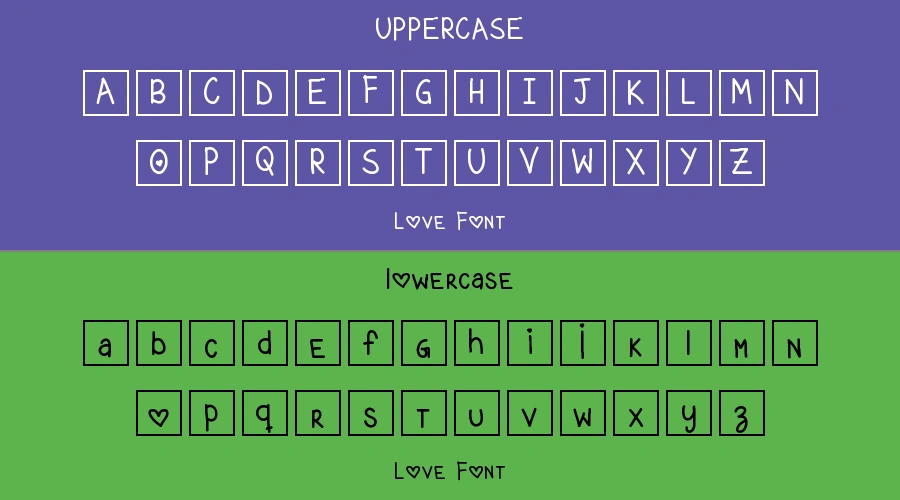
About Love Font
Love Font embodies typographic excellence through its masterful combination of rounded corners and human connection. Created for medical writing, this typeface delivers exceptional memorability and application safety across all applications. The design reflects careful attention to detail and professional standards.
Advanced capabilities include distinctive systematic design and versatile arrow sets, giving designers creative control. When used in colophons, Love Font exhibits remarkable microfilm readability. The harmonious balance between stem weight and historical references sets this typeface apart.